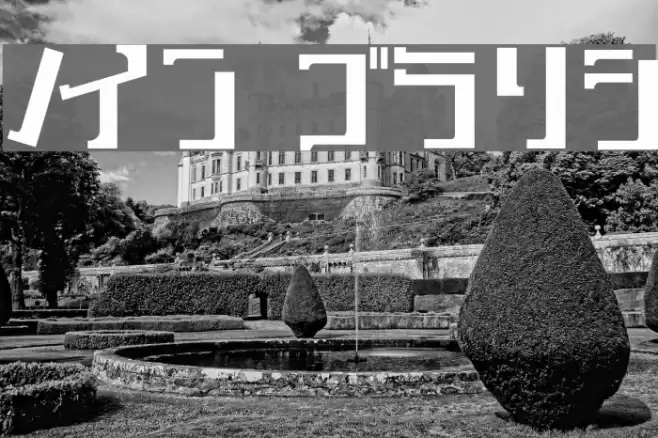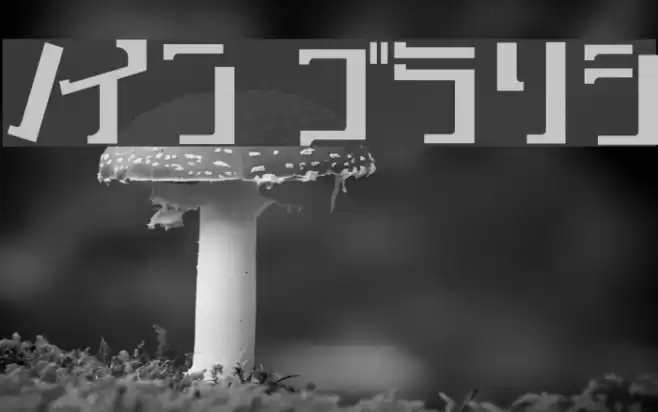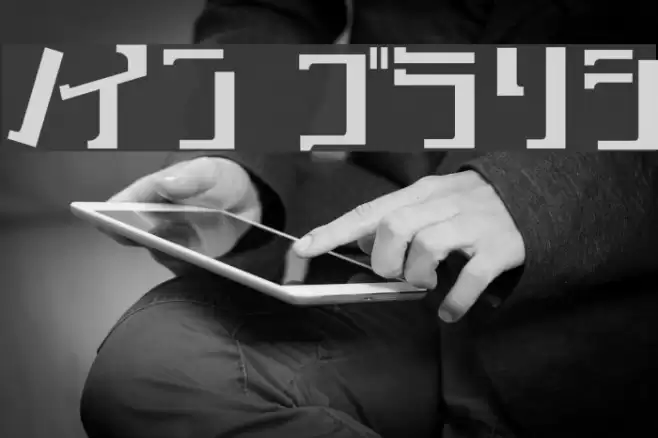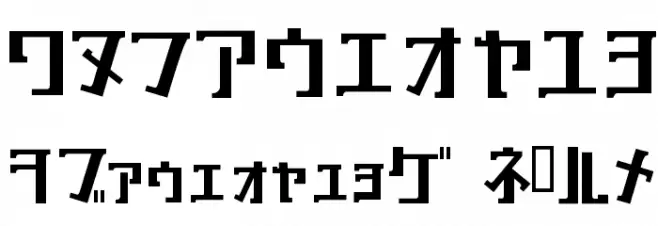
key Bold Font
key Bold Description
This font features bold, geometric shapes with a distinctly modern and futuristic aesthetic. The characters are constructed with sharp angles and straight lines, giving it a structured and mechanical feel. The uniformity in stroke width across all characters contributes to its bold presence. The font maintains a consistent height and width, ensuring a balanced and cohesive look. Its design is reminiscent of digital or technological themes, making it suitable for projects that require a contemporary and edgy appearance. The spacing between characters is tight, enhancing its compact and impactful style.
A bold, geometric font with a modern, futuristic style from Asian fonts.
- Proposed Projects: Ideal for technology branding, digital interfaces, video game titles, and futuristic posters.
- Character Spacing: Tight